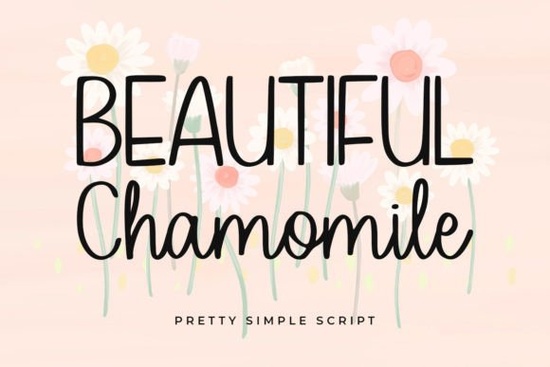
If you've been searching for a Beautiful Chamomile script font that looks polished without being overcomplicated, this one deserves a closer look. It's a simple, pretty script font that works well across a wide range of design projects from branding and logos to social media graphics, t-shirt designs, cards, and banners. Whether you're a print-on-demand seller, a small business owner, or someone who just loves creating, this font brings a clean and charming feel to your work.
What Makes Beautiful Chamomile a Good Pick for Script Font Lovers?
Script fonts are everywhere, but not all of them are easy to work with. Some are too decorative, making text hard to read at smaller sizes. Others feel generic and don't stand out. Beautiful Chamomile sits in a sweet spot it has a flowing, handwritten quality that feels natural and inviting, but it stays legible enough for practical use.
The letterforms have a soft, organic rhythm. The connections between letters feel smooth, and the overall look is warm without being overly fancy. This makes it a solid choice when you want your design to feel approachable and personal.
It pairs especially well with clean sans-serif fonts for contrast, or you can use it on its own for short headlines, quotes, or logo lockups.
What Can You Use This Font For?
One of the things that makes Beautiful Chamomile versatile is how many different projects it fits into. Here are some common uses that work really well with this font:
- Branding and logos great for businesses that want a friendly, personal touch
- Quote designs perfect for social media posts, wall art, or printables
- T-shirt and tote bag designs the clean script style translates well to print-on-demand products
- Greeting cards and invitations wedding, birthday, or thank-you cards all benefit from a soft script
- Banners and headers works nicely for blog graphics, website banners, and promotional materials
- Social media graphics Instagram stories, Pinterest pins, and Facebook posts
How Does It Compare to Other Script Fonts?
There are plenty of script fonts available, so it helps to know how Beautiful Chamomile stacks up. Compared to more elaborate options, it's noticeably simpler which is actually a strength. It doesn't try to do too much.
The key is matching the font's personality to your project. Beautiful Chamomile works best when you want something that feels gentle, clean, and naturally pretty.
Is This Font Easy to Use?
Yes, and that matters more than people realize. A beautiful font that's hard to work with slows you down. Beautiful Chamomile is designed to be straightforward. You can drop it into your design software, start typing, and it looks good right away without extensive kerning adjustments.
It's also compatible with standard design tools like Adobe Illustrator, Photoshop, Canva, Cricut Design Space, and other popular platforms that support OTF or TTF font files.
If you've been using a lovely flowing script for your projects, adding Beautiful Chamomile gives you another style option that fills a slightly different role one that's simpler and more understated.
Who Will Get the Most Out of This Font?
This font is a great fit for:
- Print-on-demand sellers who need clean, readable designs that sell well
- Small business owners creating their own marketing materials
- Crafters and hobbyists making cards, labels, or home décor
- Social media managers who want quick, attractive text-based graphics
- Wedding and event designers looking for a soft, romantic script